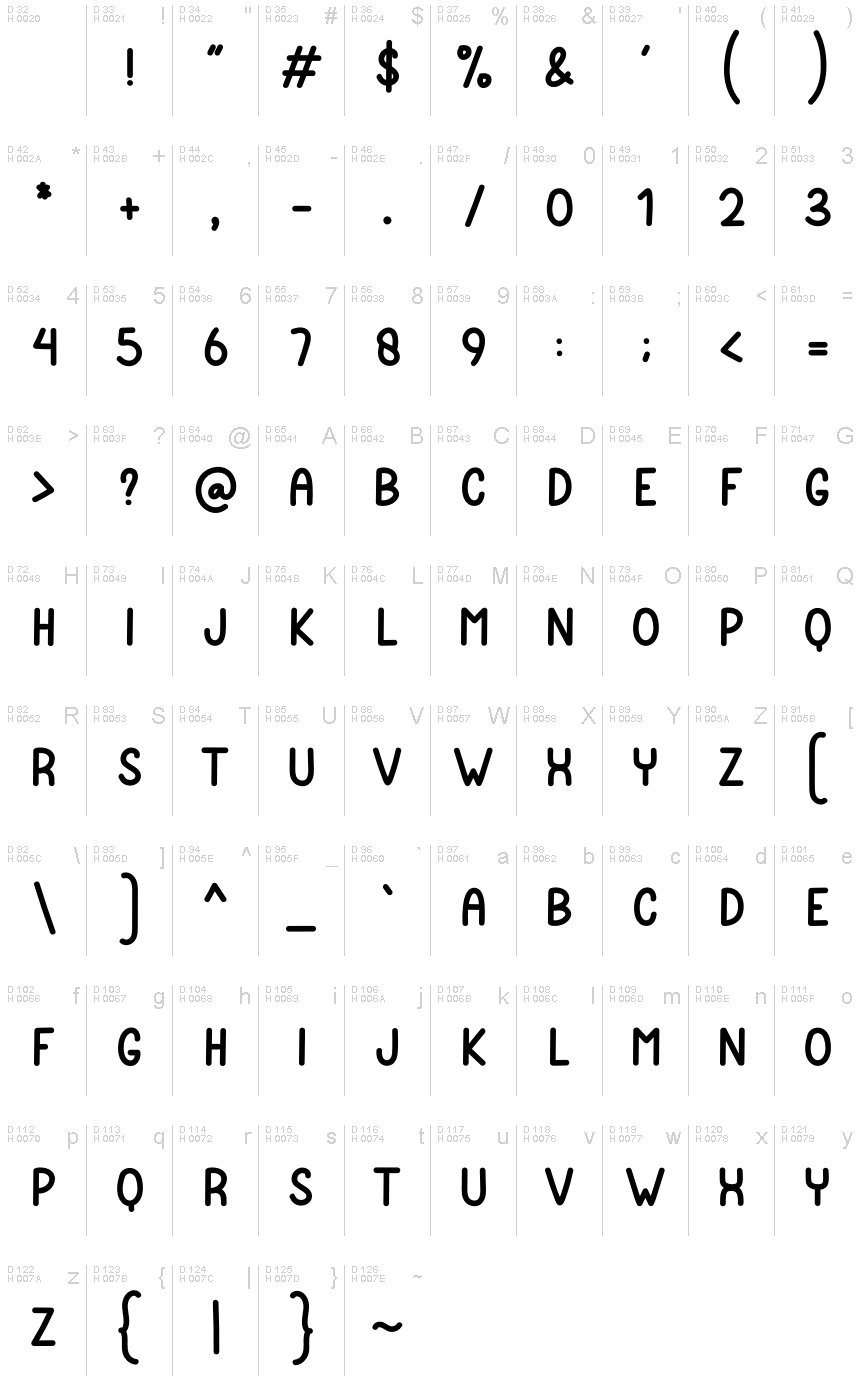
Teachers Students
Teachers Students is a handwritten font with a distinctive, organic flair. Designed by Scratchones, it captures a sense of warmth and informality, making it well-suited for educational materials, stationery, and informal branding.
The irregular brushstrokes and playful letter forms evoke a personalized, hand-crafted aesthetic, adding a touch of personality to any project. This font's versatility shines through in its potential applications, from classroom signage and worksheets to promotional materials and invitations.
Its charming, approachable style makes it an excellent choice for fostering a connection between teachers, students, and the broader academic community.